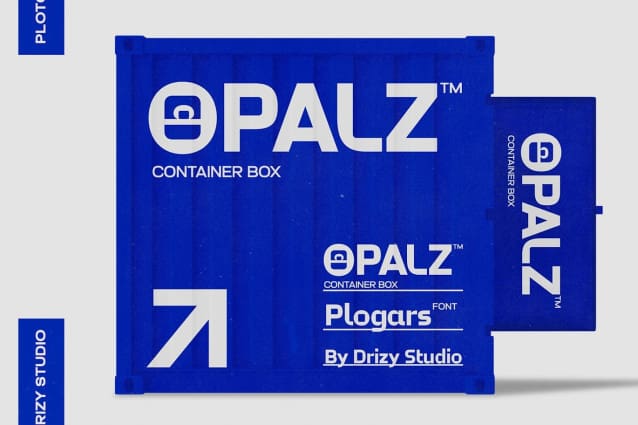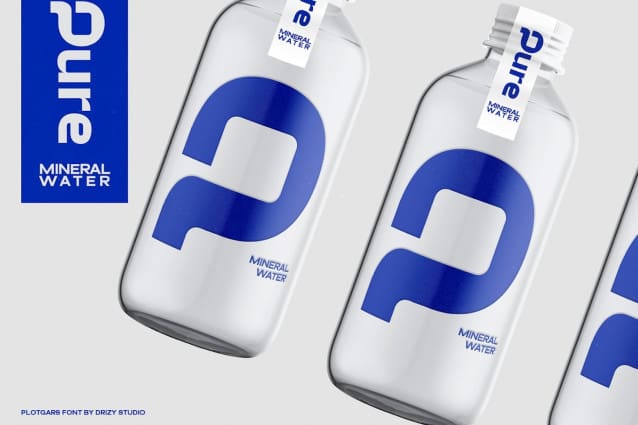
Plotgars Font
Plotgars Font is a Squared sans serif font from Drizy Studio. We offer all the styles you need for your projects.
Plotgars Features: Uppercase and lowercase Punctuation and numbers Multilingual support Alternates Ligatures